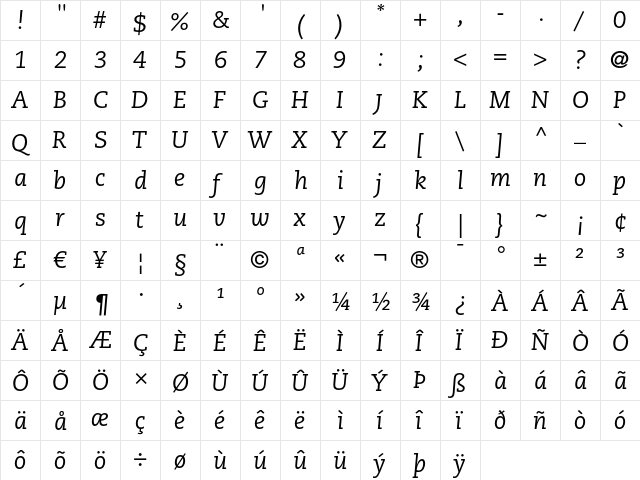
PMN Caecilia LT 56 Italic
Design Context for PMN Caecilia LT Typeface
PMN Caecilia LT takes a measured approach to typography — its balanced proportions and neutral character make it a reliable workhorse for both digital and print work. The dynamic lean of this cut emphasises speed and emphasis in any layout. Its slender proportions lend an understated elegance to any composition.
Pro Tip: Try PMN Caecilia LT for annotation and caption copy alongside an upright companion — the contrast in angle creates a dynamic but ordered typographic system.